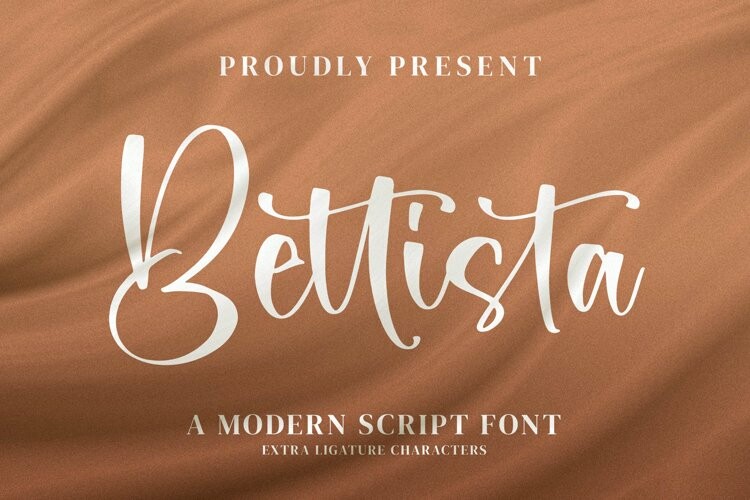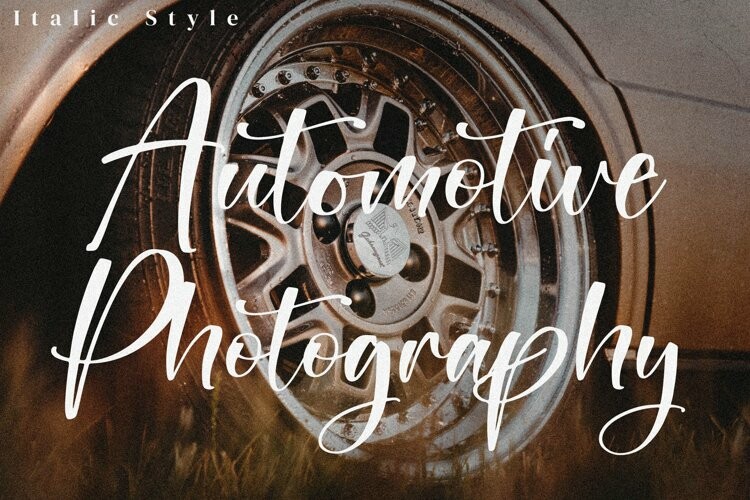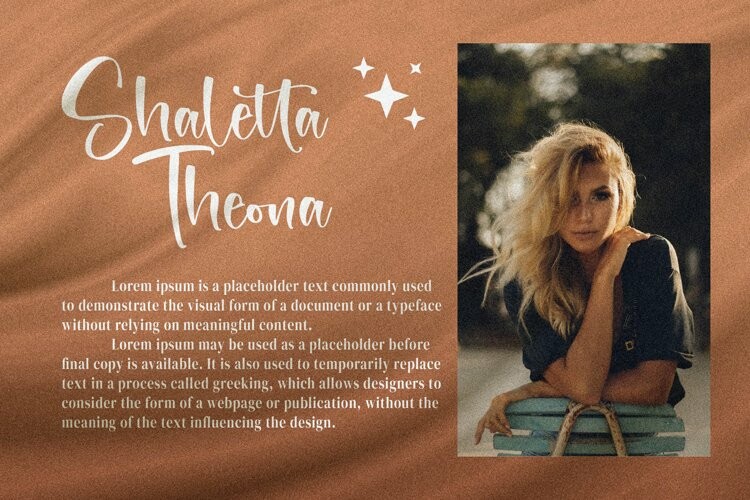
Bettista – Modern Script Font
Bettista - Modern Script FontBettista – Modern Script Font, from Integritype Studio, is a premium Calligraphy Font , suitable for any projects such as: logos, branding projects, homeware designs, product packaging, mugs, quotes, posters, shopping bags, t-shirts, book covers, name card, invitation cards, greeting cards, label, photography, watermark, special events, and all your other luxury projects that need a premium signature taste.